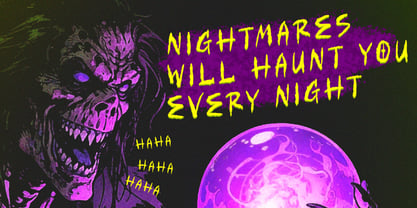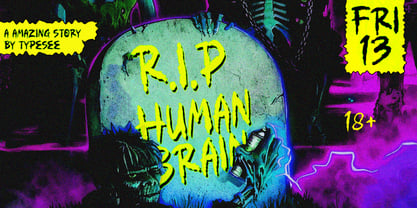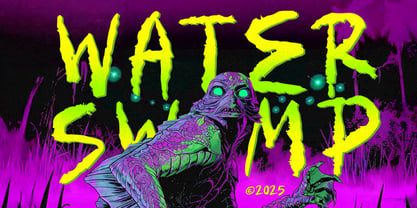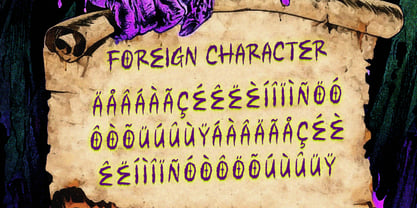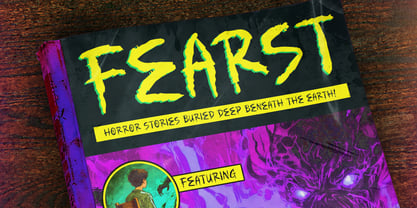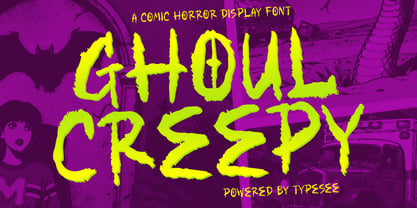
Ghoul Creepy
by Typesee
The Ghoul Creepy Font Family was designed by Rizka Prayuda, Muhammad Mirza Azhmi and published by Typesee. Ghoul Creepy contains 1 styles. More about this family
Ghoul Creepy is a comic horror display font that combines rough brush strokes with exaggerated letterforms to deliver a chilling yet playful aesthetic. Each glyph feels alive, echoing vintage monster comics and cult horror covers. Designed for designers who want to inject intensity and style into their projects, it fits perfectly in Halloween graphics, movie titles, event posters, and digital artworks. The uneven strokes and distressed details make it stand out in both print and digital media. Add Ghoul Creepy to your font library to amplify the tension and humor in your horror-themed designs.
Designers: Rizka Prayuda, Muhammad Mirza Azhmi
Foundry: Typesee